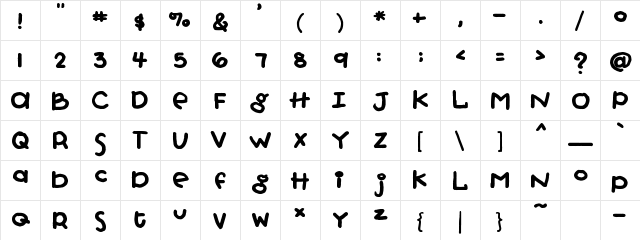
FB Punkypie Font Preview
FB Punkypie FB Punkypie
FB Punkypie Font Details
Design Context for FB Punkypie Typeface
FB Punkypie is a composed and adaptable typeface that performs quietly and consistently across a wide range of design contexts.